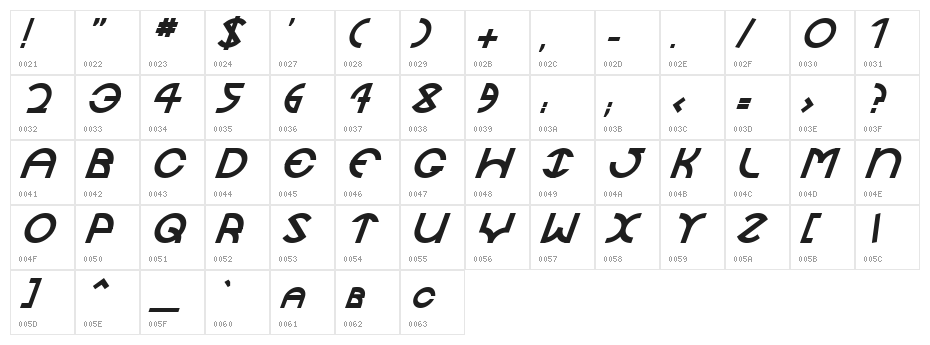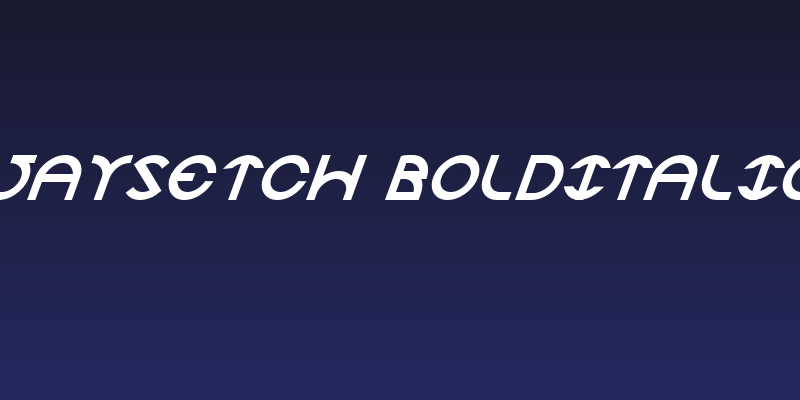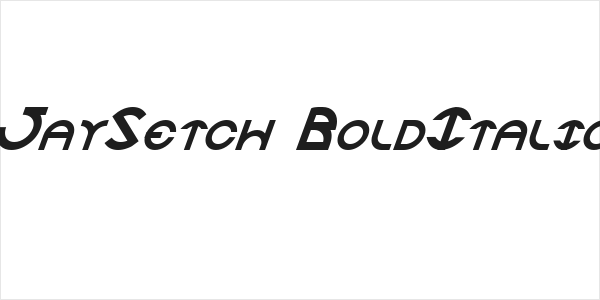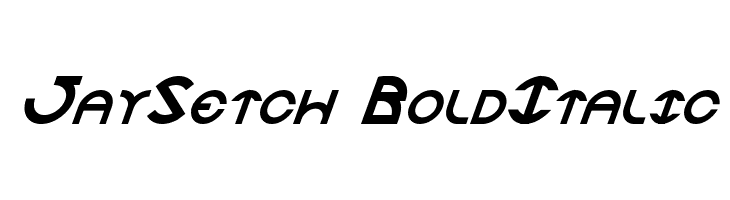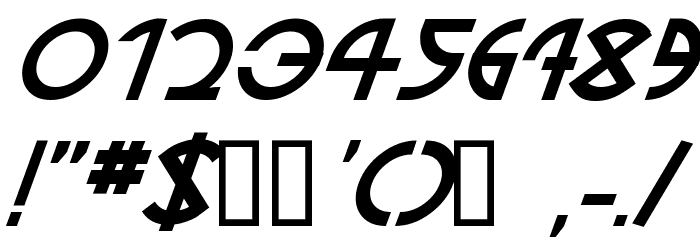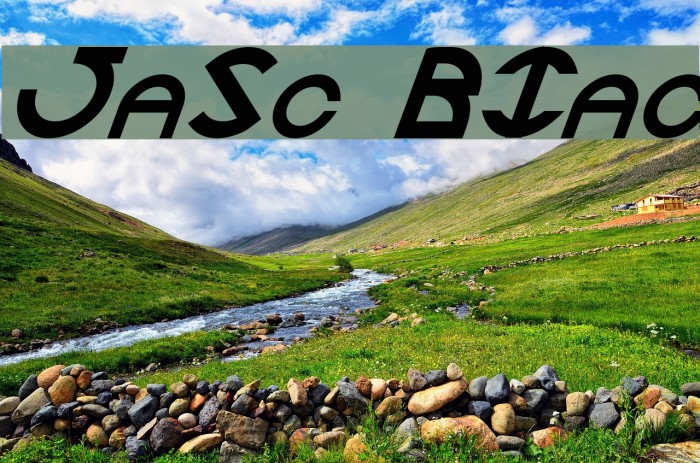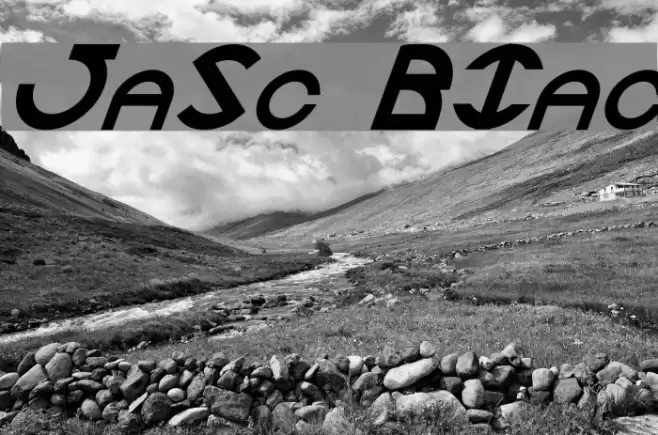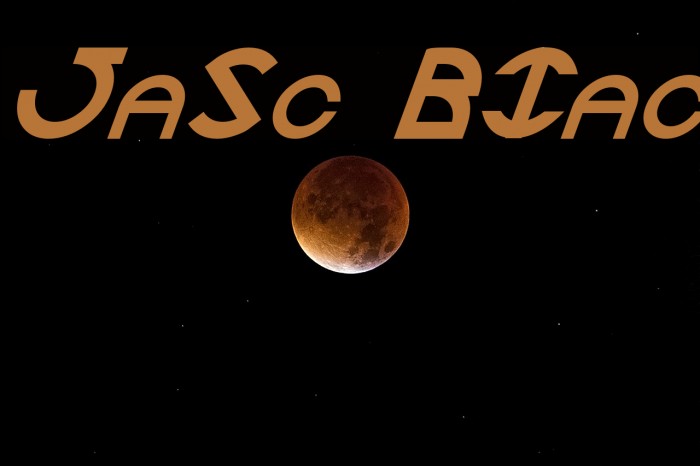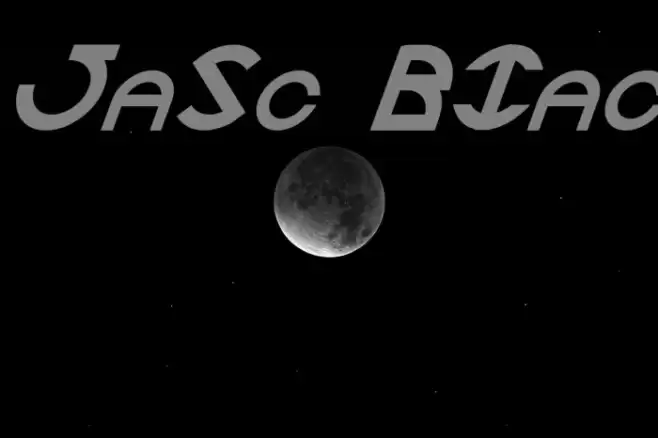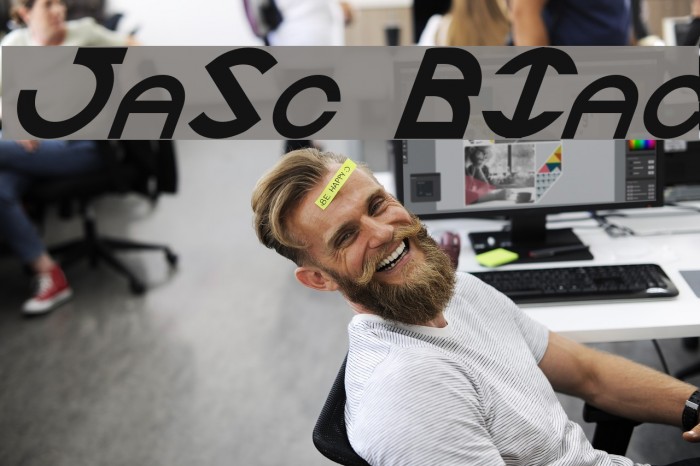
JaySetch BoldItalic Font
JaySetch BoldItalic Description
This font features a bold and italicized style with a modern and dynamic appearance. The characters are slanted, giving a sense of movement and energy. The strokes are thick and consistent, providing a strong visual impact. The design includes a mix of sharp angles and smooth curves, creating a unique and eye-catching look. The uppercase and lowercase letters maintain a cohesive style, while the numerals and special characters are designed to match the overall aesthetic. This font is suitable for projects that require a bold statement or a contemporary feel.
| Proposed Projects | Ideal for branding, advertising, headlines, and posters where a strong and modern impression is needed. |